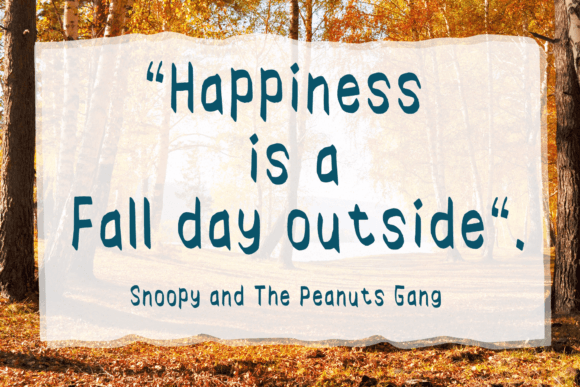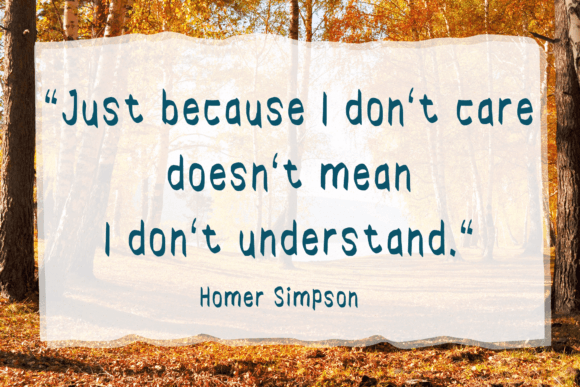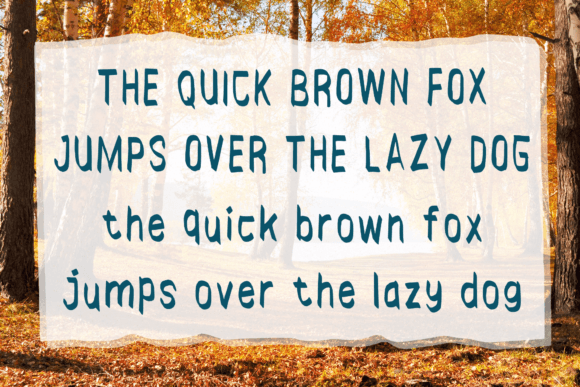
Introducing Autumn Shade II: The Fun Handwritten Font for Creative Designs
Are you looking for a font that adds a playful touch to your designs? Look no further than Autumn Shade II, a fun handwritten font that’s perfect for a variety of creative projects. With its casual and versatile style, this font is ideal for designers and crafters who want to add a personal touch to their work.
The Characteristics of Autumn Shade II
Autumn Shade II is a handwritten font that exudes a sense of fun and playfulness. Its handwriting feel is perfect for designs that require a casual and relaxed approach. The font’s characteristics include:
- Handwritten style: Autumn Shade II has a genuine handwritten look that’s perfect for creating unique and personalized designs.
- Fun and playful: The font’s playful style makes it ideal for cartoon-related designs, kids’ projects, and other creative endeavors that require a lighthearted approach.
- Versatile: Autumn Shade II is incredibly versatile, making it suitable for a wide range of design applications, from greeting cards to posters and more.
Uses for Autumn Shade II
Autumn Shade II is a versatile font that can be used in a variety of design projects, including:
- Cartoon-related designs: The font’s playful style makes it perfect for designing cartoons, comics, and other animated content.
- Kids’ projects: Autumn Shade II is ideal for creating fun and engaging designs for kids, such as children’s books, posters, and activity sheets.
- Greeting cards: The font’s casual style makes it perfect for designing greeting cards for special occasions, such as birthdays, holidays, and more.
- Posters and flyers: Autumn Shade II can be used to create eye-catching posters and flyers for events, promotions, and more.
Why Choose Autumn Shade II?
There are many reasons why designers and crafters choose Autumn Shade II for their creative projects. Here are a few:
- Easy to read: Despite its handwritten style, Autumn Shade II is easy to read, making it perfect for designs that require a clear and concise message.
- Highly versatile: The font’s versatility makes it suitable for a wide range of design applications, from digital designs to print materials.
- Unique and personalized: Autumn Shade II adds a personal touch to designs, making them stand out from the crowd.
Tips for Using Autumn Shade II
Here are a few tips for using Autumn Shade II in your designs:
- Experiment with colors: Autumn Shade II looks great in a variety of colors, so don’t be afraid to experiment and find the perfect hue for your design.
- Mix and match: Combine Autumn Shade II with other fonts to create a unique and visually appealing design.
- Keep it simple: Don’t overcomplicate your design. Autumn Shade II is perfect for simple, yet effective designs.
Autumn Shade II is a fun and versatile handwritten font that’s perfect for designers and crafters who want to add a personal touch to their creative projects. With its casual style and high level of versatility, this font is ideal for a wide range of design applications. Whether you’re designing cartoons, greeting cards, or posters, Autumn Shade II is sure to become a favorite in your design arsenal.
Get Creative with Autumn Shade II